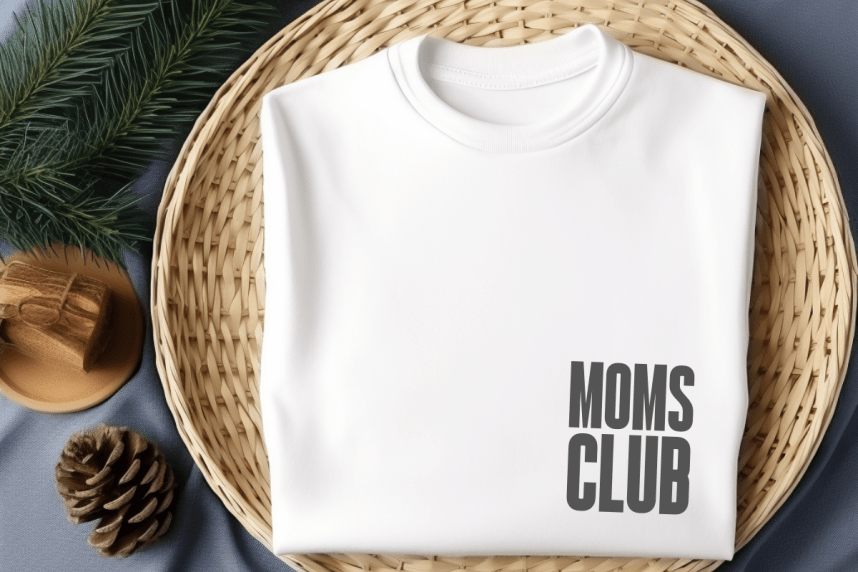
Captain Font is a bold and commanding condensed sans serif font designed for creators who need a powerful visual presence and modern impact. With its thick, blocky letterforms and tight, efficient spacing, this font is perfect for Print On Demand projects like athletic jerseys, motivational posters, gym apparel, and urban branding. Its strong, authoritative style fits both professional and industrial designs, making it ideal for sports logos, headline-driven layouts, or cinematic high-action visuals.